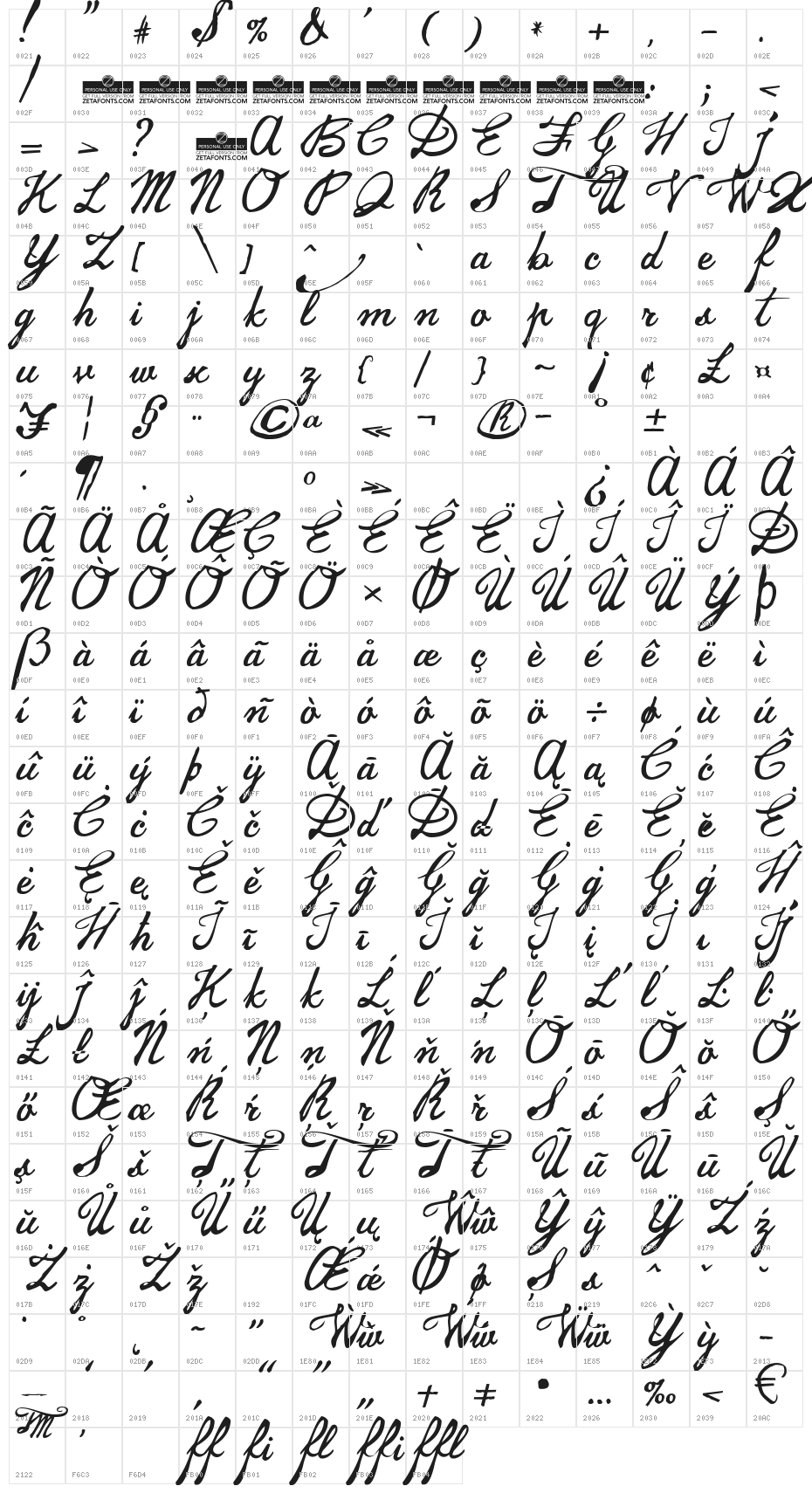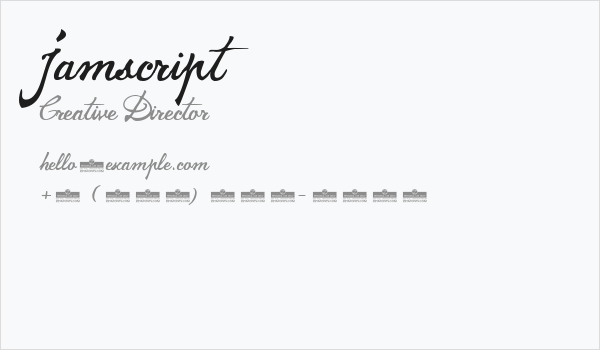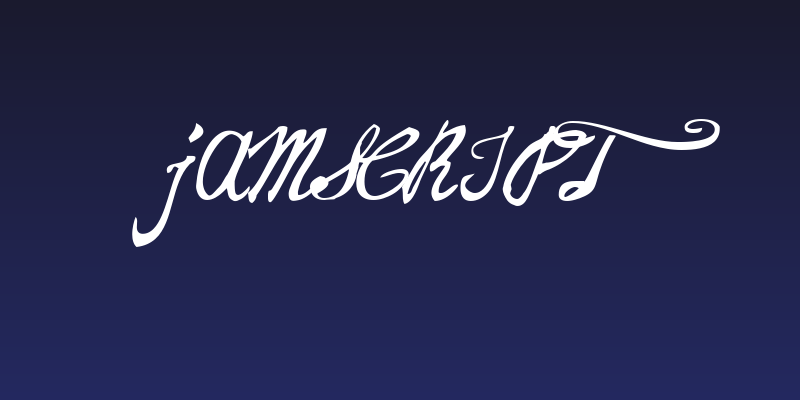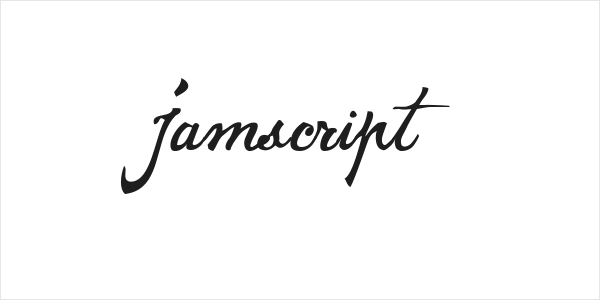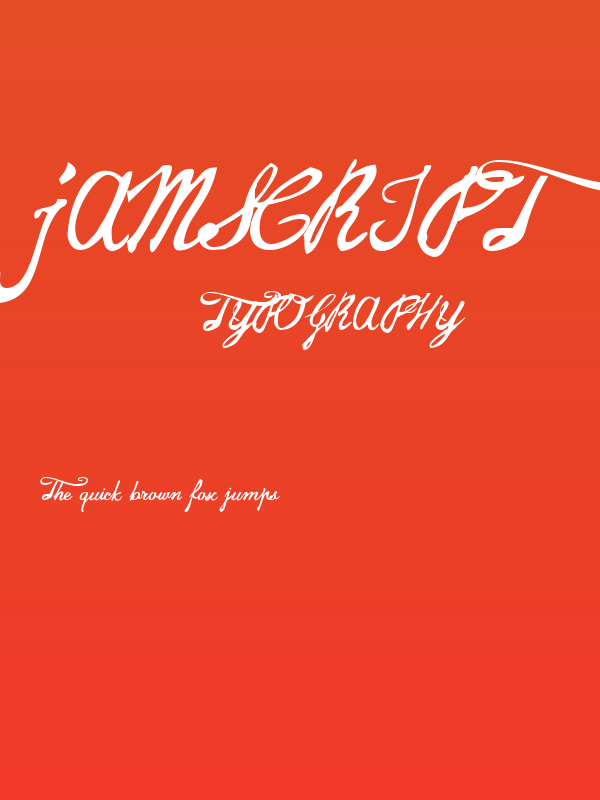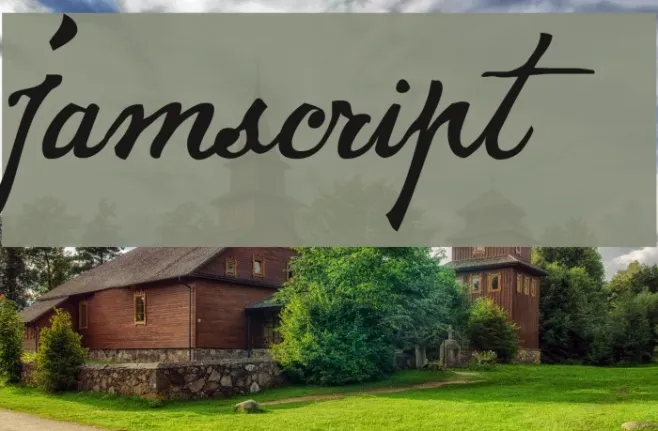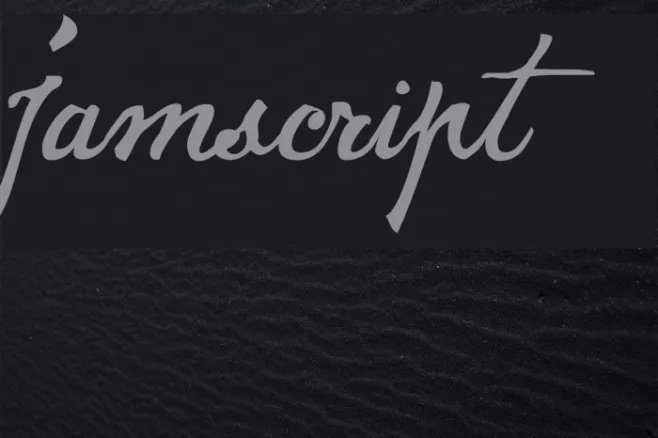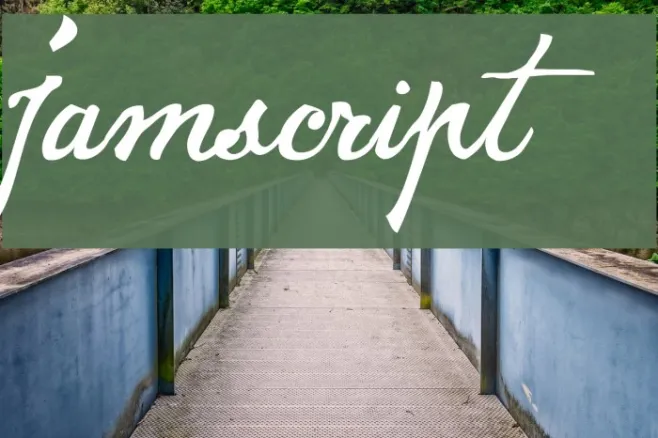
Jamscript Font
Jamscript Description
This font exudes a lively and dynamic script style, characterized by its fluid and connected letterforms. The uppercase letters are bold and expressive, with a slight slant that adds to the overall movement of the text. The lowercase letters maintain a consistent flow, enhancing readability while retaining an artistic flair. The numerals and special characters are crafted with the same attention to detail, ensuring a cohesive look across all text elements. The font's design is both elegant and playful, making it suitable for a variety of creative applications.